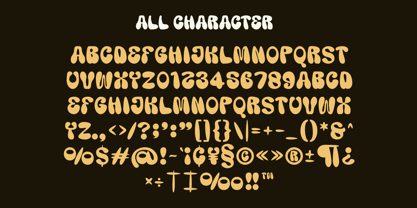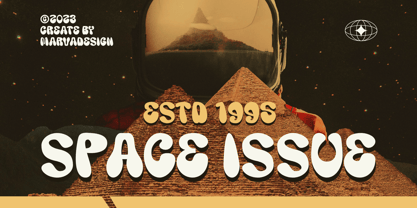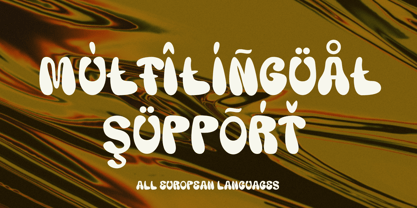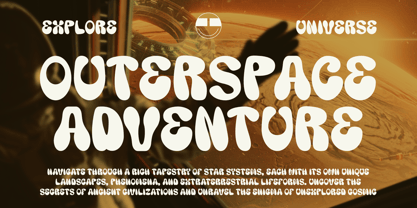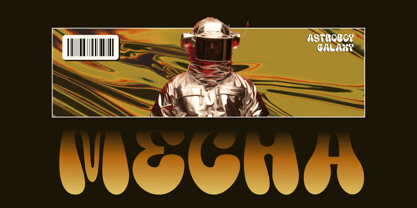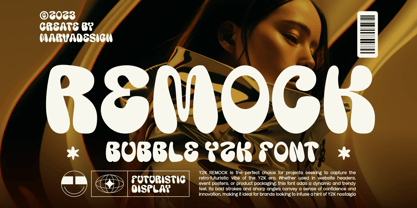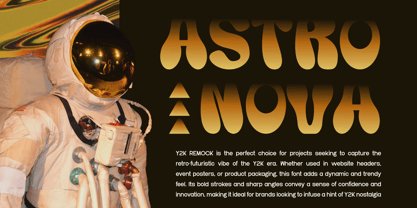
Remock
by Marvadesign
The Remock Font Family was designed by Febrie Setiawan and published by Marvadesign. Remock contains 1 styles. More about this family
Introducing Remock is a striking example of Y2K-inspired typography, embodying a retro-futuristic aesthetic with bold, fluid, and exaggerated letterforms. It features a bubble-like structure with thick, rounded strokes, giving it a dynamic and playful yet modern feel. The typeface seamlessly blends nostalgia with contemporary design, making it an excellent choice for branding, event posters, digital media, and product packaging that aims to capture the essence of early 2000s visual culture.
One of its defining characteristics is its smooth, organic shapes, which evoke a sense of fluidity and movement. The font’s weight distribution creates a soft, inflated appearance, enhancing its futuristic and experimental appeal. Additionally, in some variations, a gradient color transition is applied, moving from deep tones to golden hues, further reinforcing its high-tech and space-age influence.
The typography also incorporates subtle angular elements, which add a sense of confidence and boldness, making it particularly effective for projects seeking a distinctive and innovative visual identity. Overall, this font is a perfect representation of the Y2K design era, merging nostalgia with forward-thinking creativity.
Designers: Febrie Setiawan
Foundry: Marvadesign